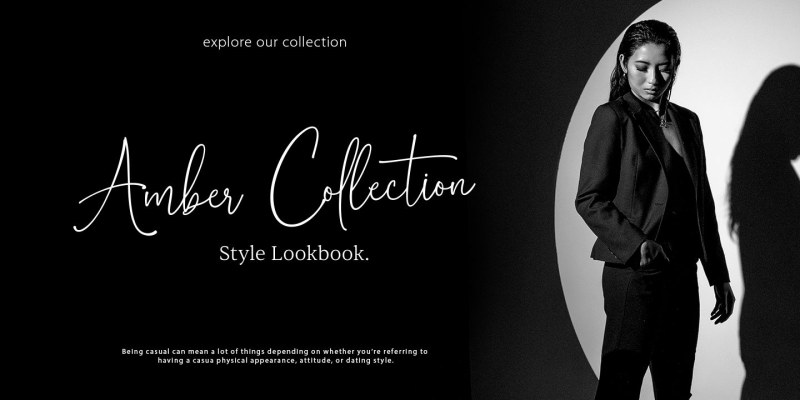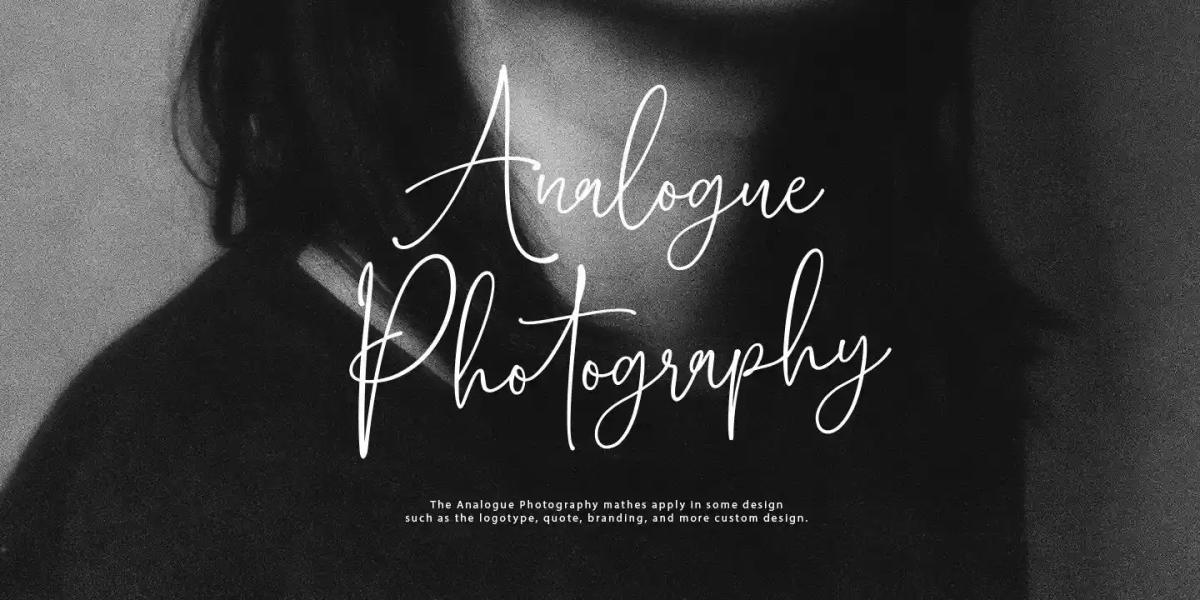
Analogue Photography Font
Analogue Photography is a handwritten signature font with fashionable themes. The Analogue Photography matches apply in some designs such as the logotype, quotes, weddin…
Analogue Photography is a handwritten signature font with fashionable themes. The Analogue Photography matches apply in some designs such as the logotype, quotes, wedding invitation, business card, packaging, branding, and more custom design.
Where Analogue Photography Font works best
Analogue Photography Font brings a personal, handwritten warmth to invitations, menus and place cards.
Craft brands — coffee, cosmetics, bakery — use scripts like Analogue Photography Font for signature-style logos and labels.
Pair Analogue Photography Font with a plain sans for quotes, stories and Pinterest pins that feel handmade.
What is Analogue Photography Font good for?
Analogue Photography Font is a Script And Handwritten typeface tagged Branding, Handwritten, Packaging, Professional. It works well for headlines, logos, posters, social media graphics and branding projects that need a distinctive script and handwritten look.